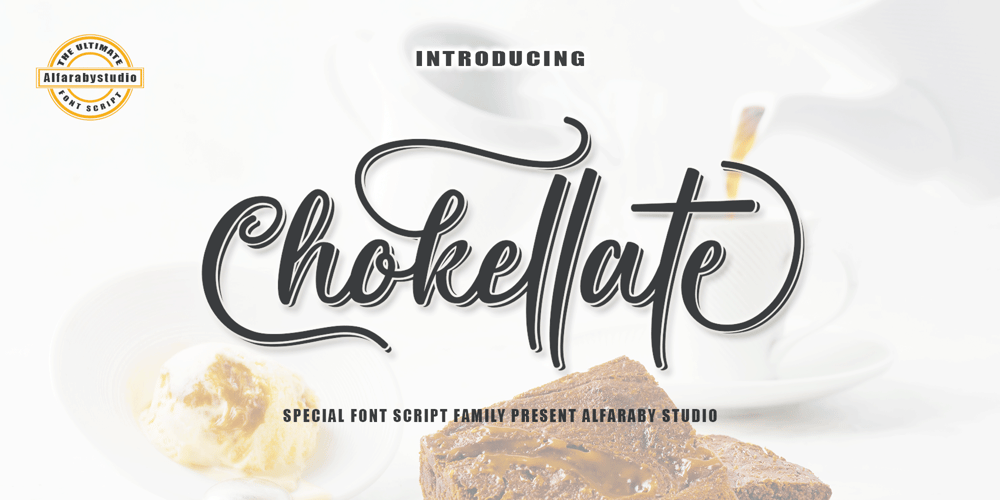
Chokellate
Chokellate font
Chokellate Font Family was designed by Faizal Alfarabi and published by Alfaraby Studio. Chokellate contains 2 styles and family package options. INTRODUCINGChokellate font family a fonts of Chokellate font family duo stylish calligraphy that have a varied base line, fine lines, classic and elegant touches. Can be used for various purposes. Such as title, signature, logo, wedding invitation, t-shirt, letterhead, nameplate, label, news, poster, badge etc.Chokellate font family displays stylish calligraphy alternate characters. Includes initial letters and terminals, alternatives, ligatures and multiple language support.The Features of this fonts is: * Standart ligatures * Stylistic Alternates * PUA Unicode (Private Use Areas) * Swash Programs that support in this font is a Adobe Photo Shop, Adobe Illustrator, Adobe Indesign, Corel Draw and Microsoft Office.OpenType features can be accessed by using OpenType smart programs such as Adobe Photo Shop, Adobe Illustrator, Adobe Indesign, Corel Draw and Microsoft Office. can also be accessed through the character map. Special greetings for all, all of us all smoothly in running the routine.Thank you for your purchase!.